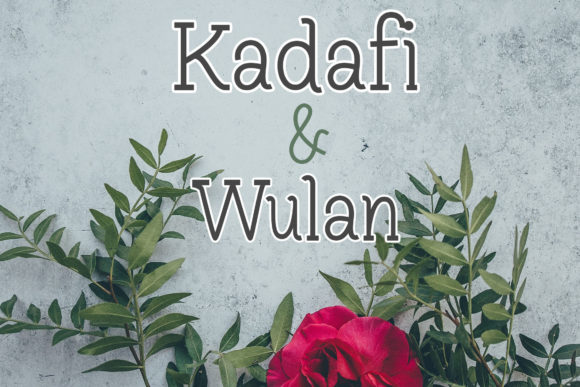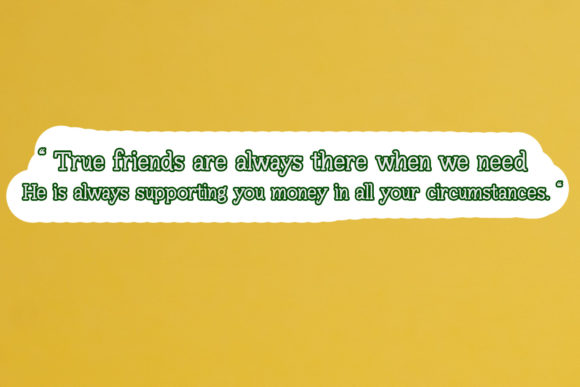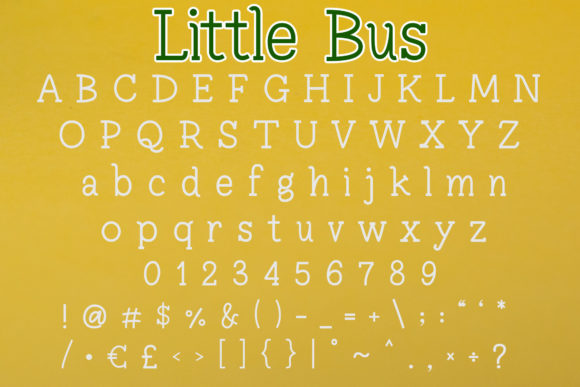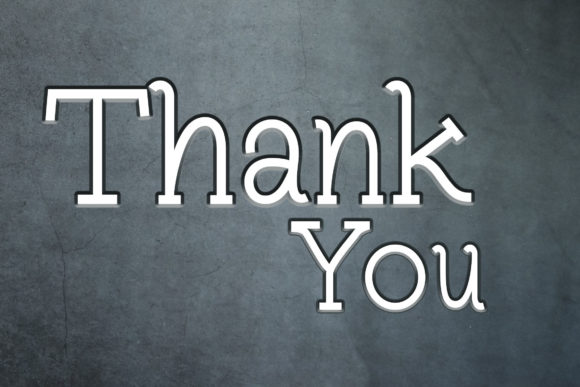
Introduction to Little Bus Font
Little Bus is a lovely and assertive serif font that exudes elegance and playfulness.
This font was particularly crafted for those who need a beautiful and refreshing look to their designs .